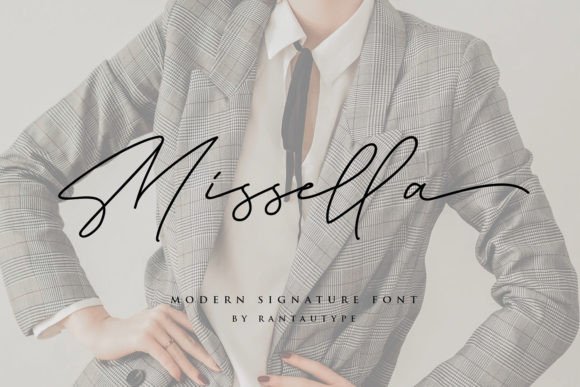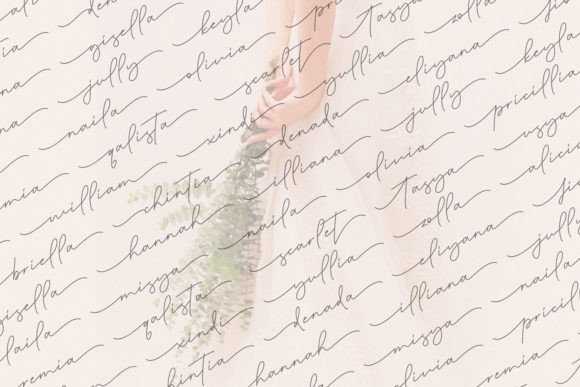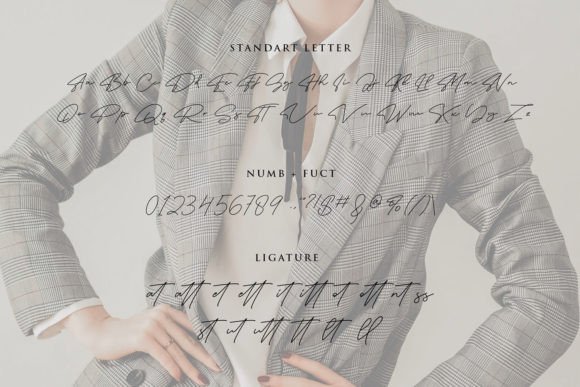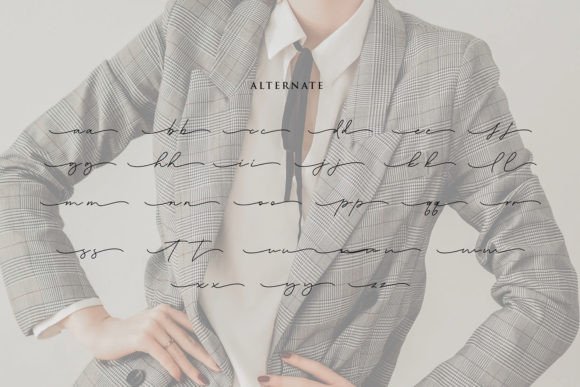
About Missella Font
Missella is a thin and elegant handwritten font. Missella is the great choice for watermark on photography, signature or signature logo design, quotes, album cover, business card and many other design project.